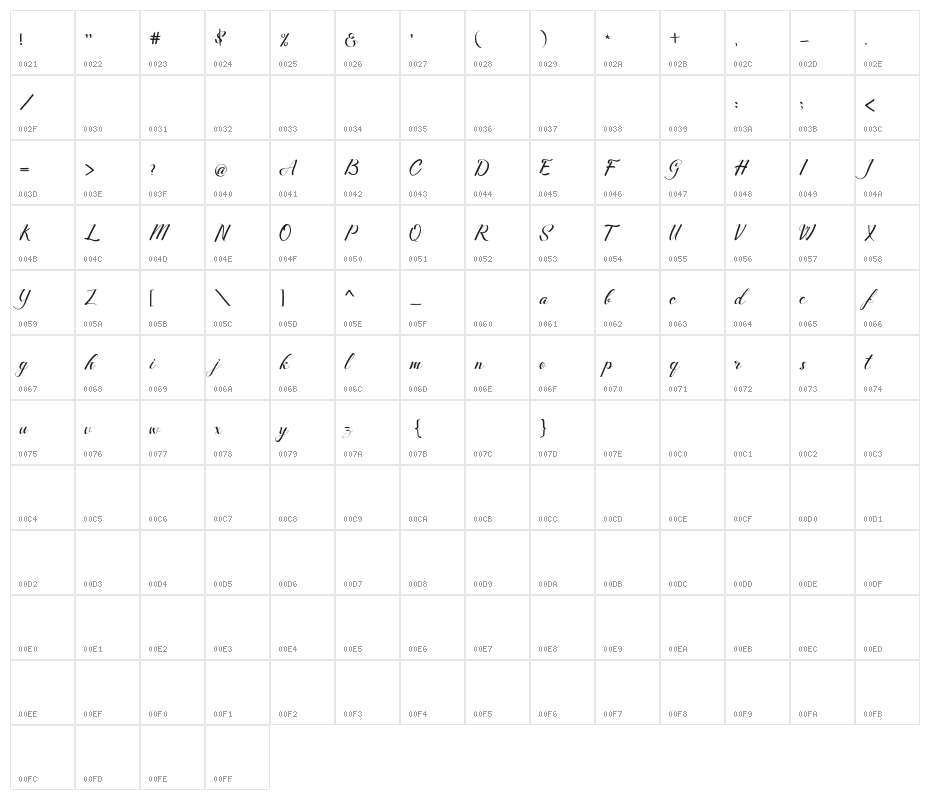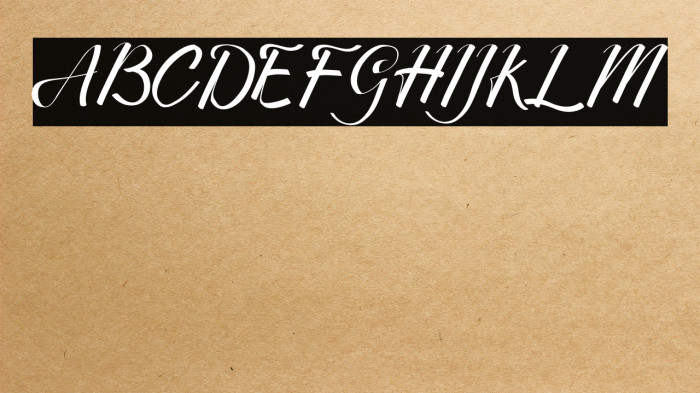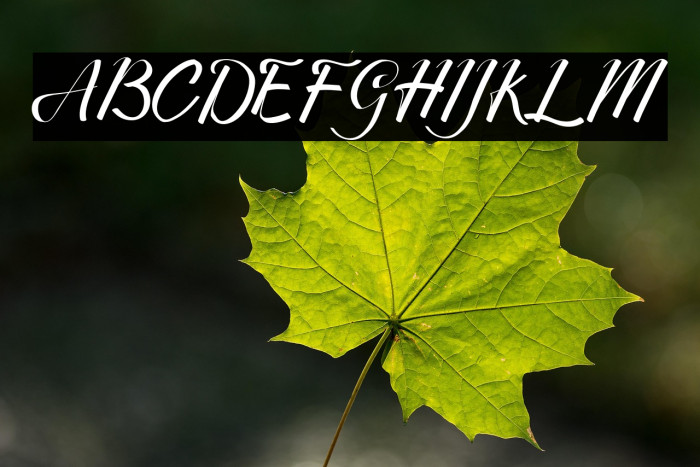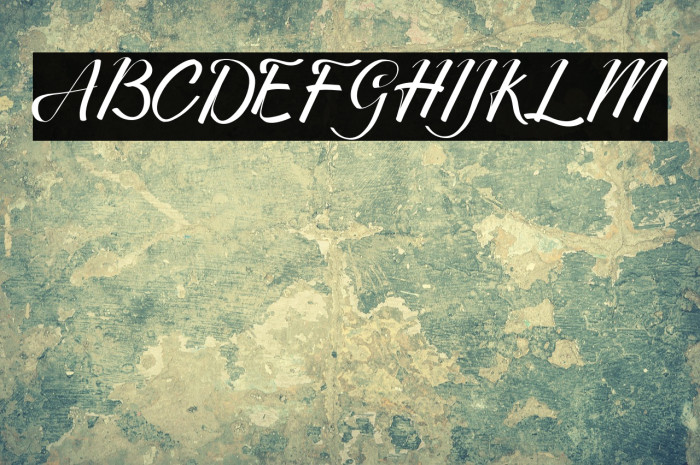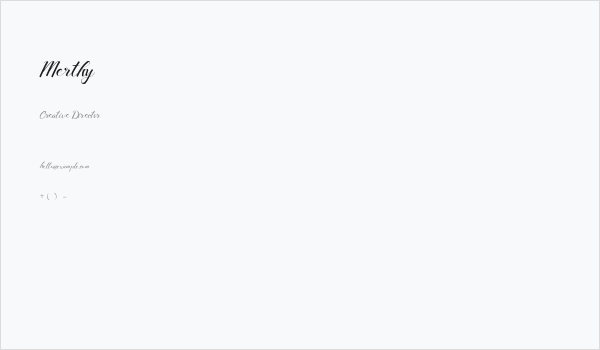
Merthy Font
Merthy Description
This elegant script font features a flowing, cursive style with high contrast between thick and thin strokes. The uppercase letters are ornate and sweeping, while the lowercase letters maintain a graceful, connected appearance. The font exudes a sense of sophistication and formality, making it ideal for invitations, branding, and decorative purposes. The special characters are designed to complement the overall style, adding a touch of flair to any text. The font's intricate details and smooth curves create a visually appealing and harmonious look.
| Overall Style | Elegant, Formal |
| Use Case | Invitations, Branding, Decorative Text |
| Proposed Projects | Ideal for wedding invitations, luxury branding, greeting cards, and decorative headings. |